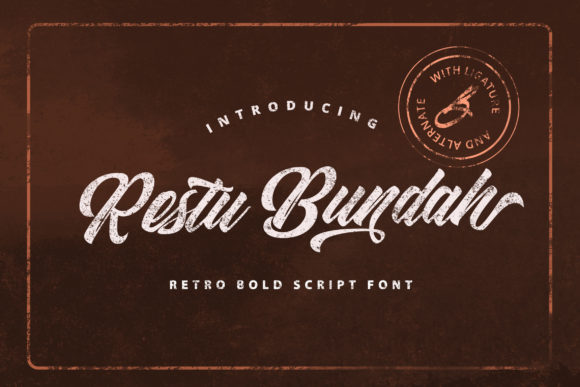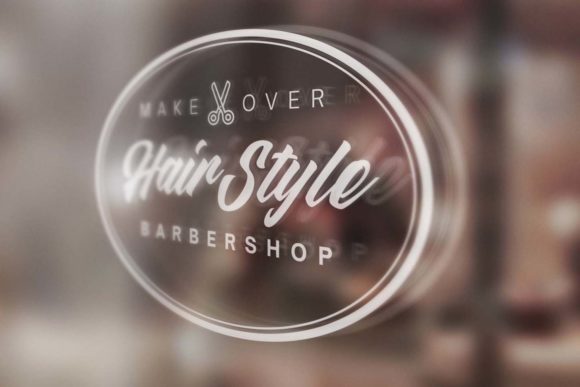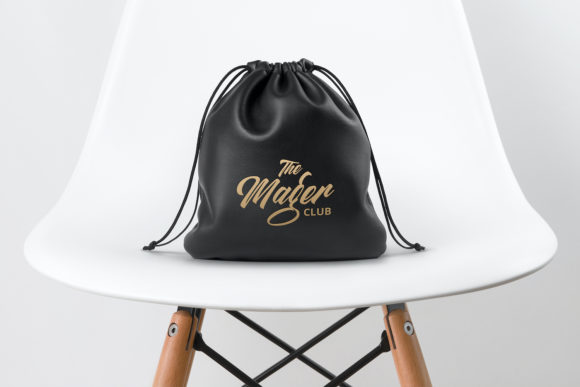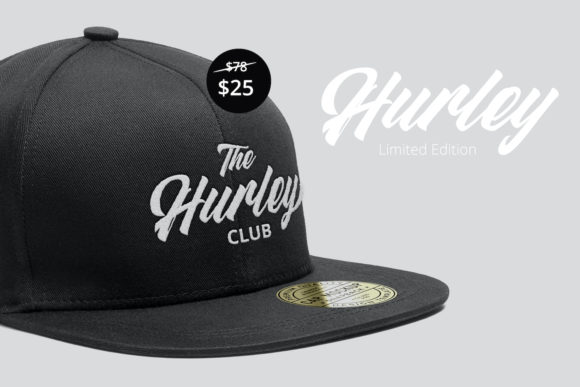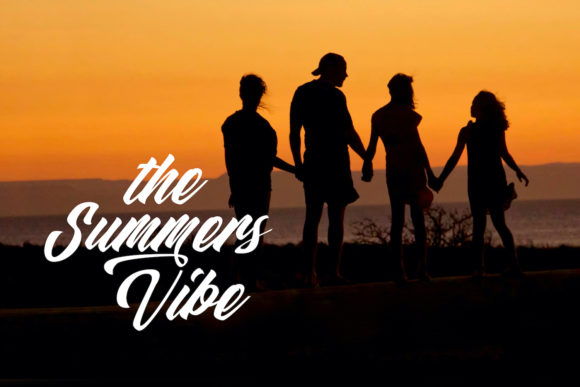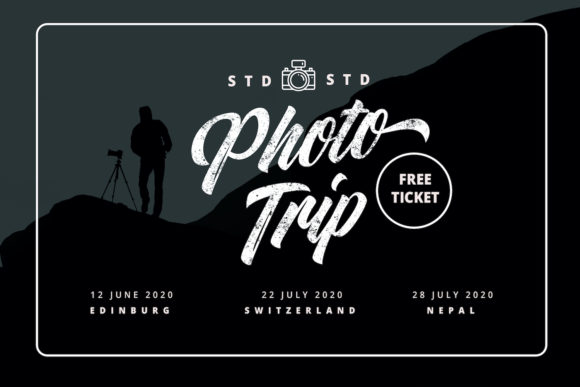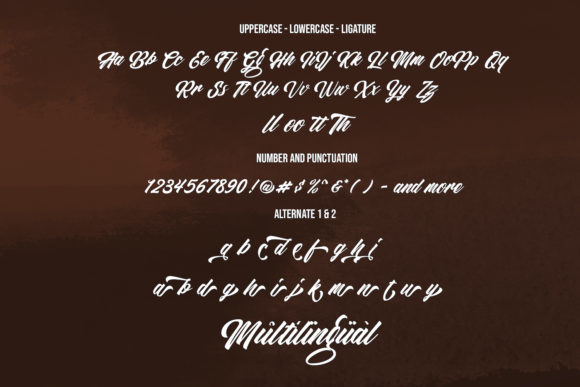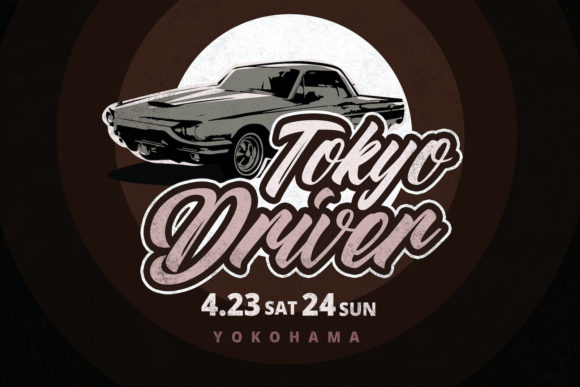
Restu Bundah Font
About Restu Bundah Font
Restu Bundah is a retro bold script with a groovy style. It features a vintage style and is perfect for retro lovers. It will elevate a wide range of design projects, be it barbershops, motorcycle clubs, clothing, logos, coffee shops, and much more!